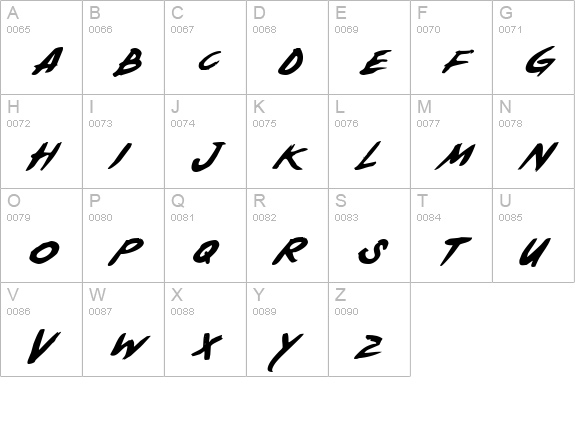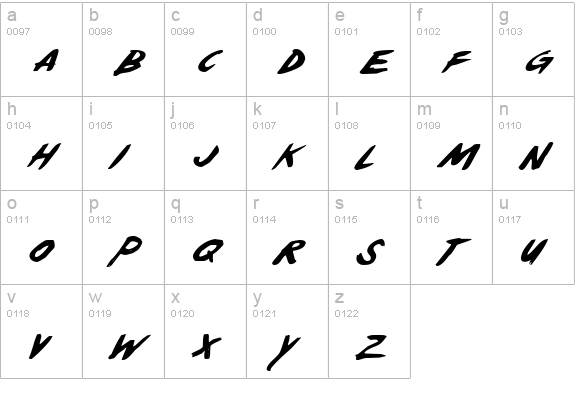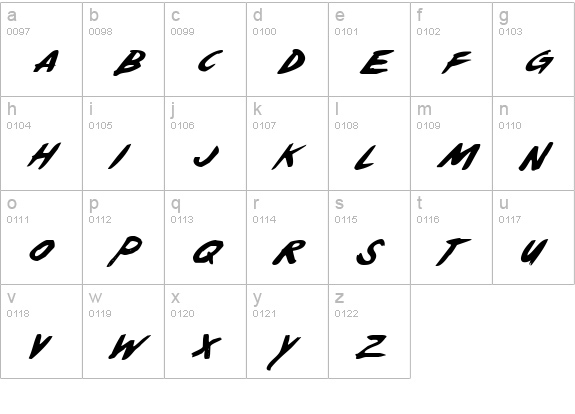
Yellowjacket Italic is a distinctive, italic variant in the Yellowjacket typeface family \xE2\x80\x94 well suited to design and typography projects.
Yellowjacket Italic font is a stylish and modern typeface that exudes sophistication and elegance. Its sleek and slanted design adds a touch of flair to any project, making it perfect for branding, editorial design, and more. The italicized version of Yellowjacket font offers a unique and eye-catching appearance that is sure to captivate your audience. Best of all, Yellowjacket Italic font is completely free to download at FontsMarket.com. Whether you're a designer looking to add a fresh new font to your collection or a creative individual seeking a versatile typeface for your next project, Yellowjacket Italic is the perfect choice. Download it today and elevate your designs with this stunning and free font.